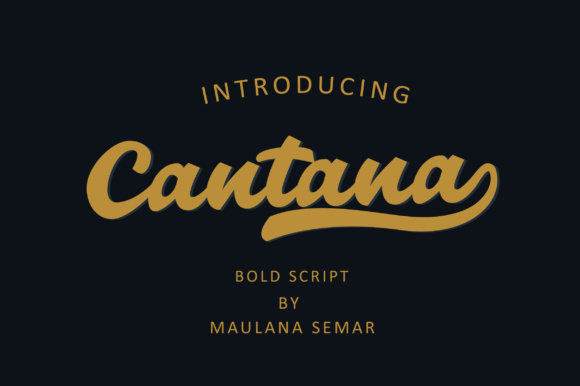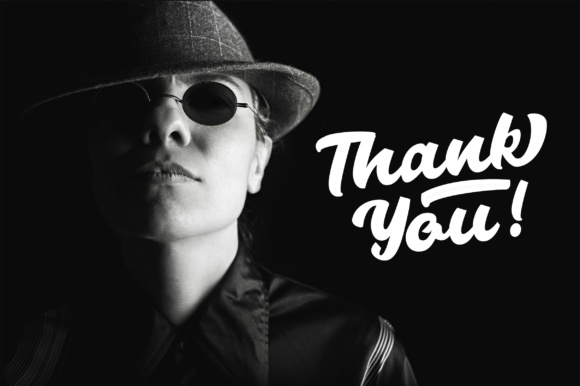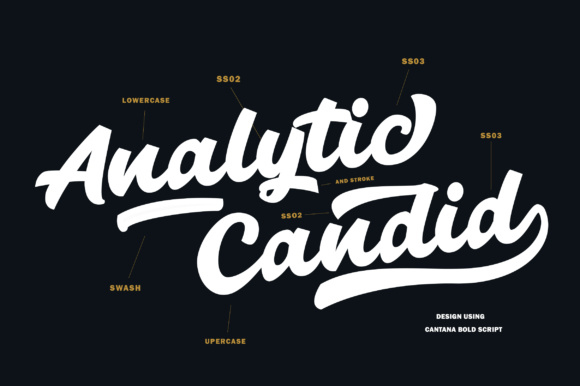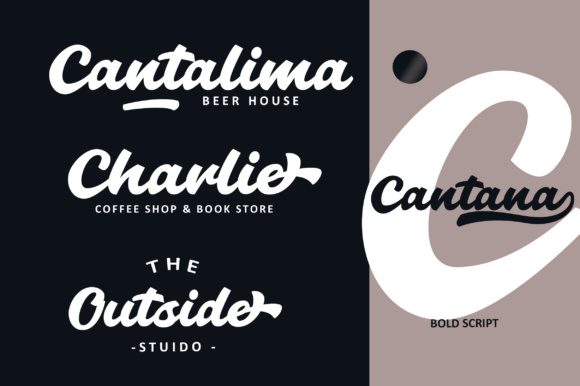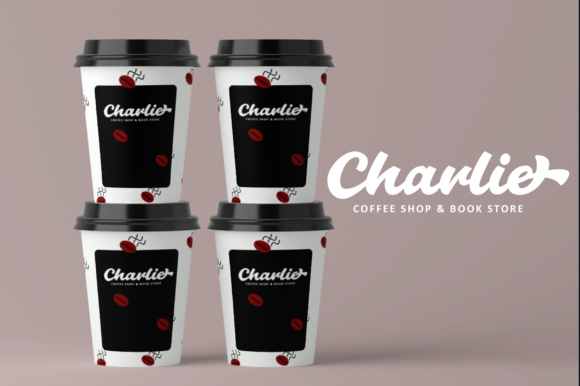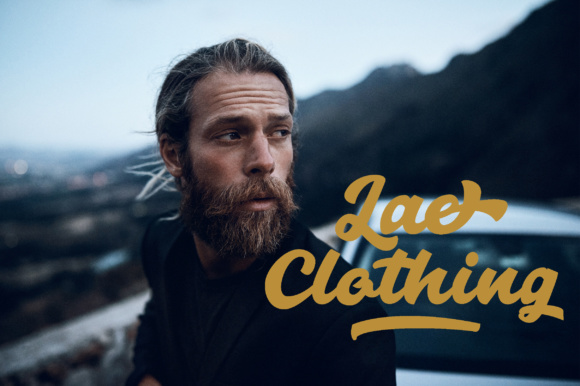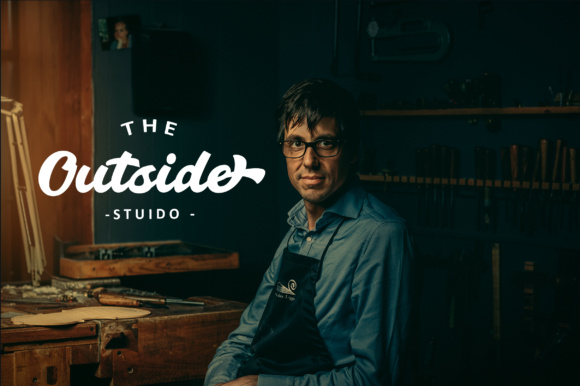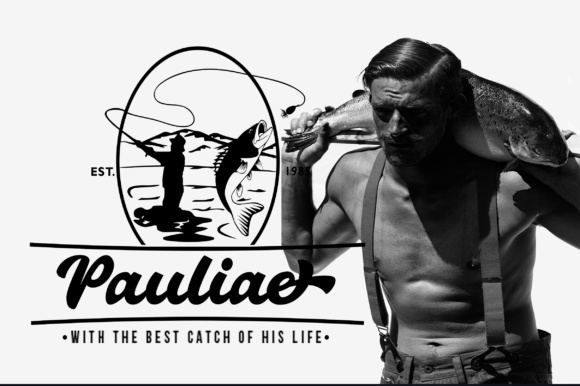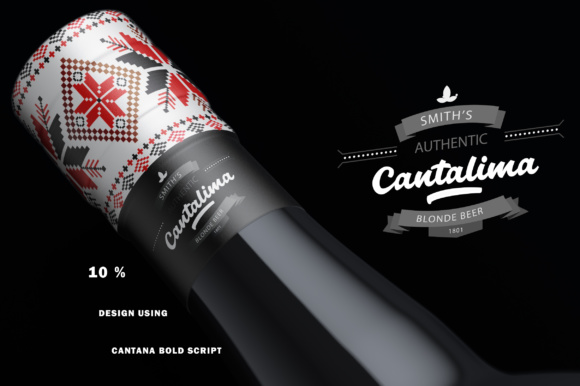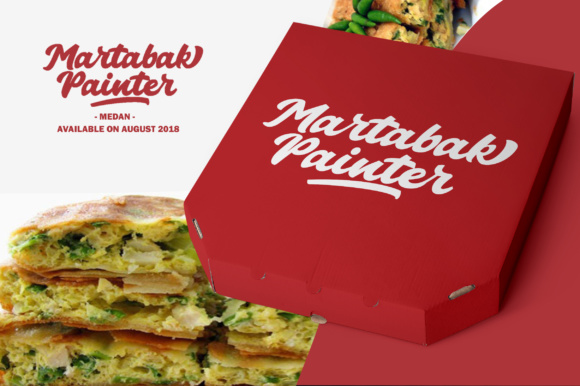
Cantana Script Font
About Cantana Script Font
Cantana is a bold script, with a classy attractive look and feel.
It’s great for (personal) branding, as the text is legible and is guaranteed to leave an impact.